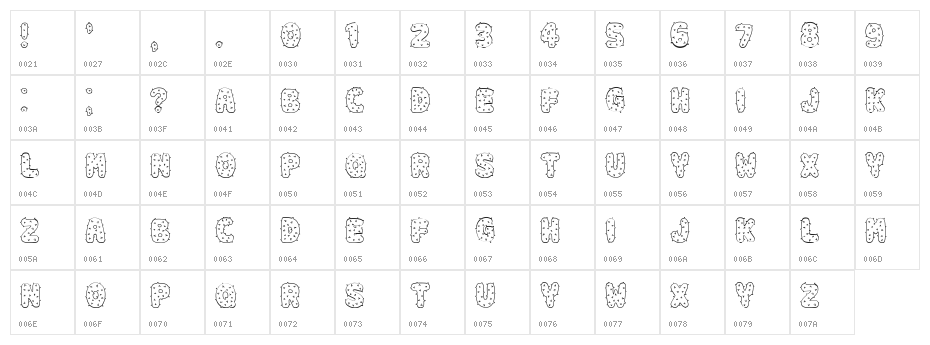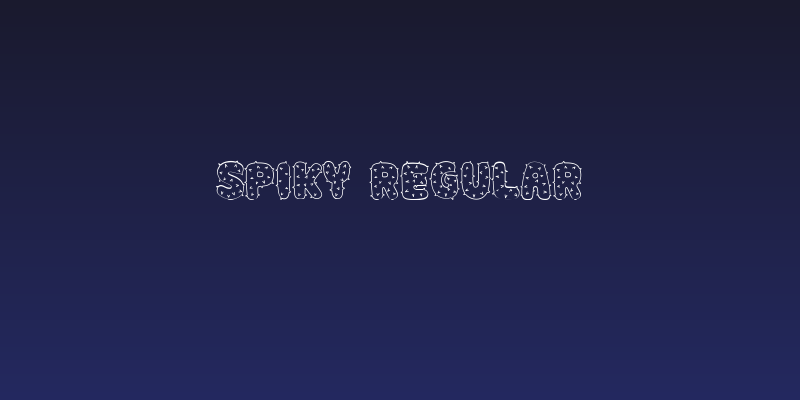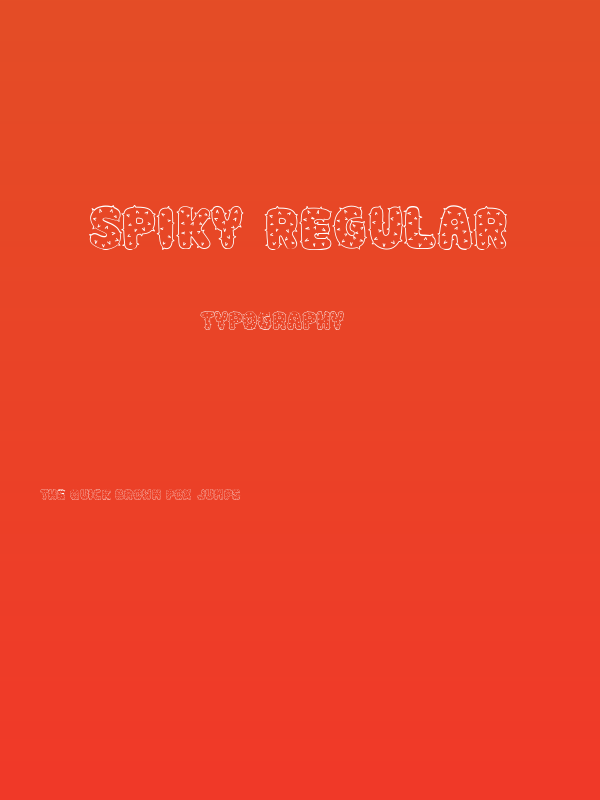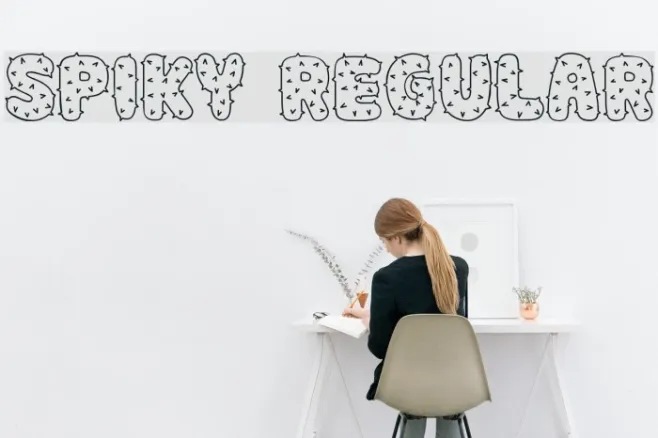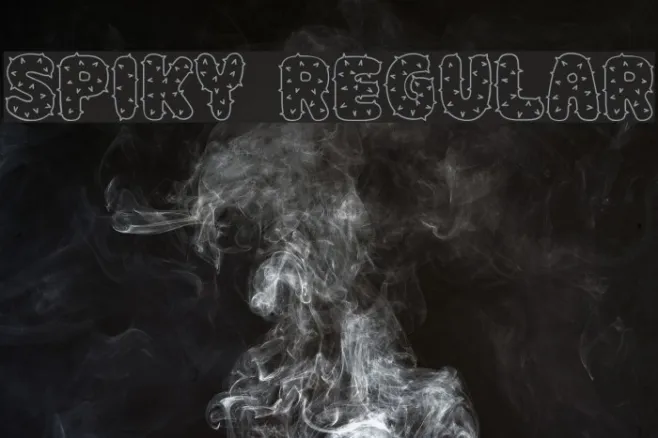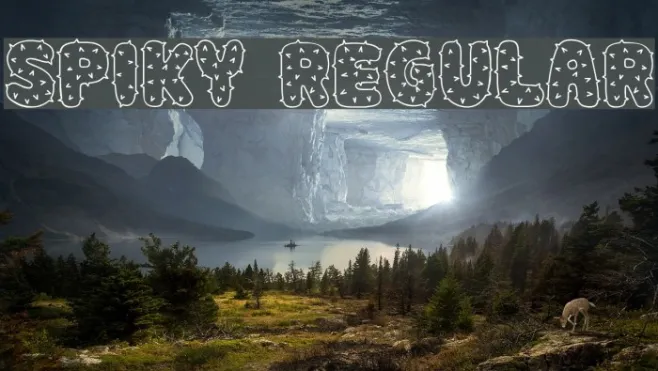
Spiky Regular Font
Spiky Regular Description
This font features a playful and unique design with spiky, cactus-like elements protruding from each character. The bold, rounded letters are filled with small, sharp spikes that give it a distinctive and edgy appearance. The font maintains a consistent thickness throughout, with a slightly irregular outline that adds to its quirky charm. It is highly decorative, making it suitable for eye-catching designs and creative projects. The characters are evenly spaced, ensuring readability despite their unconventional style.
| Proposed Projects | Ideal for children's book covers, playful posters, party invitations, and themed event branding. |